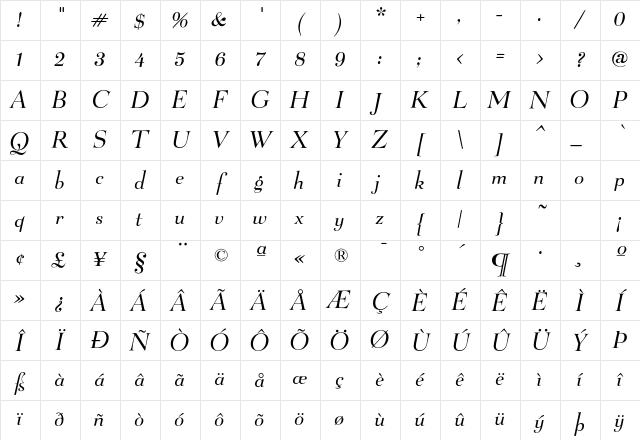
BeLucian FB Book is a composed and adaptable typeface that performs quietly and consistently across a wide range of design contexts. The slanted form adds forward momentum and visual energy.
Pro Tip: Use BeLucian FB Book for emphasis, pull quotes, and subheadings where its slanted energy can add rhythm to the layout.